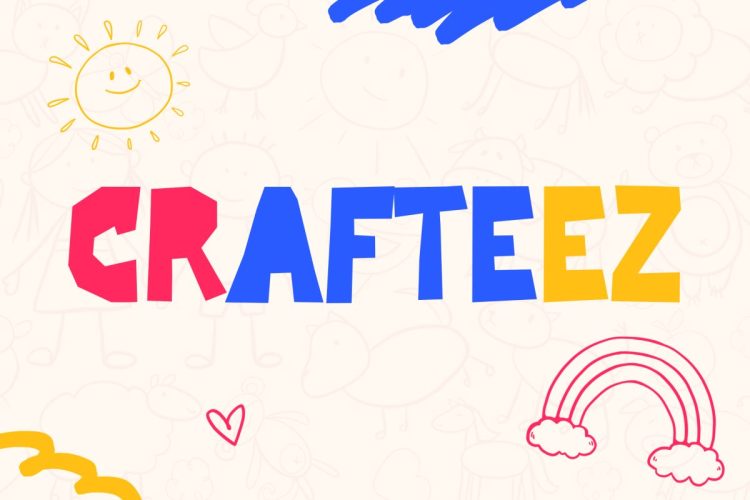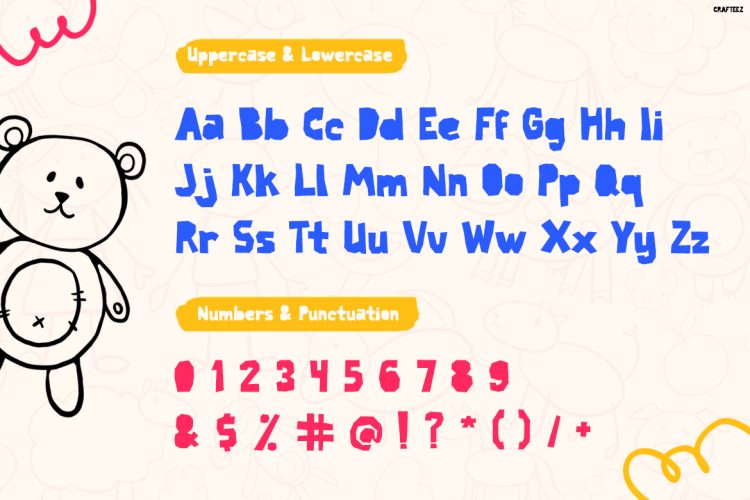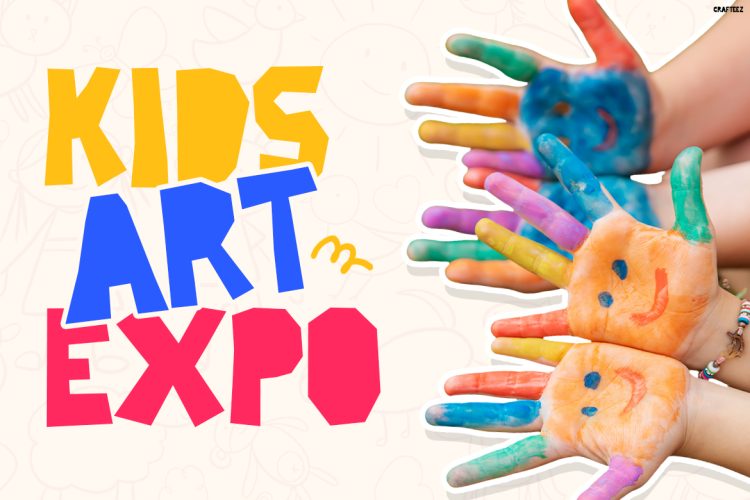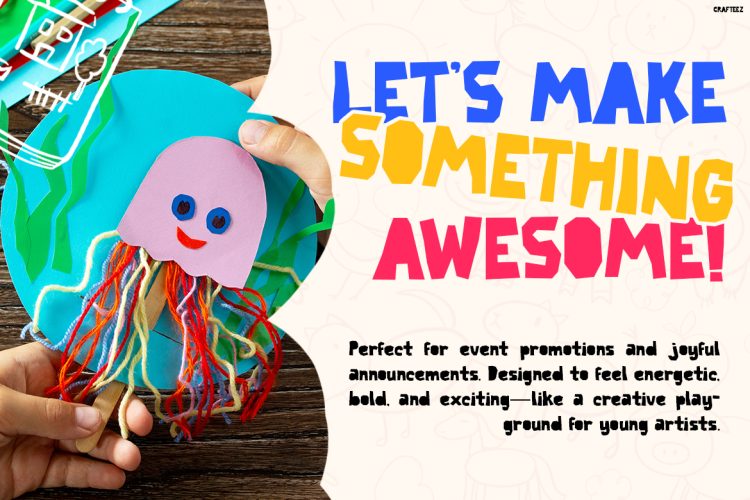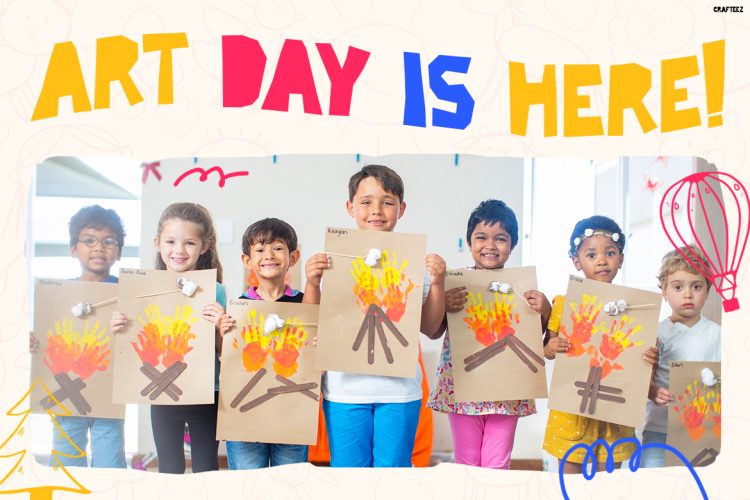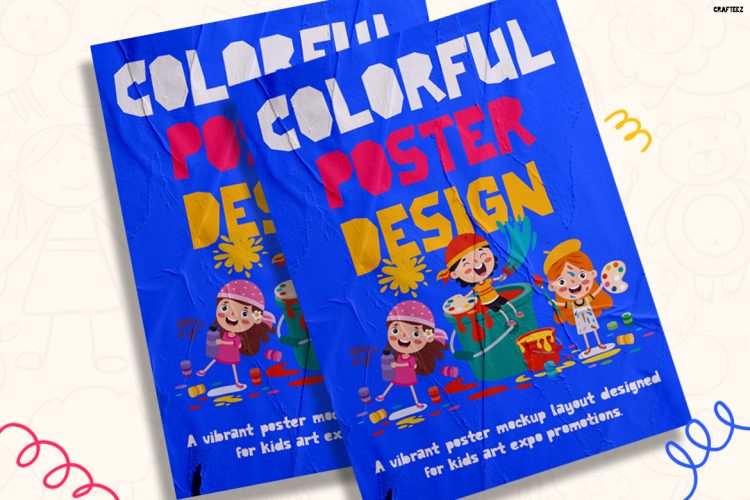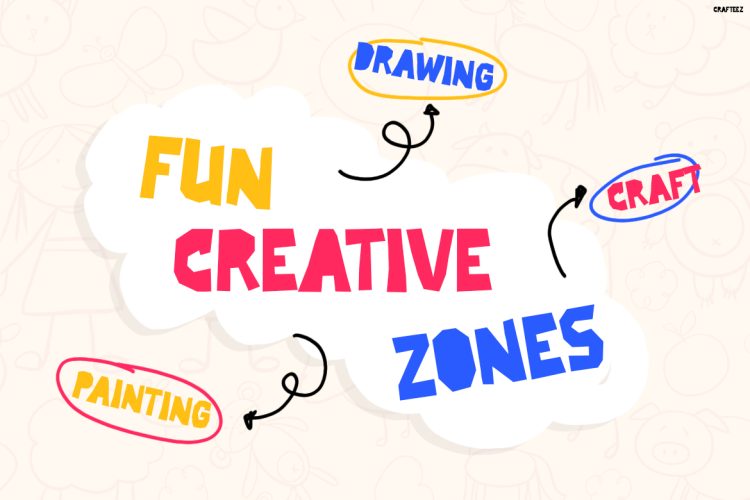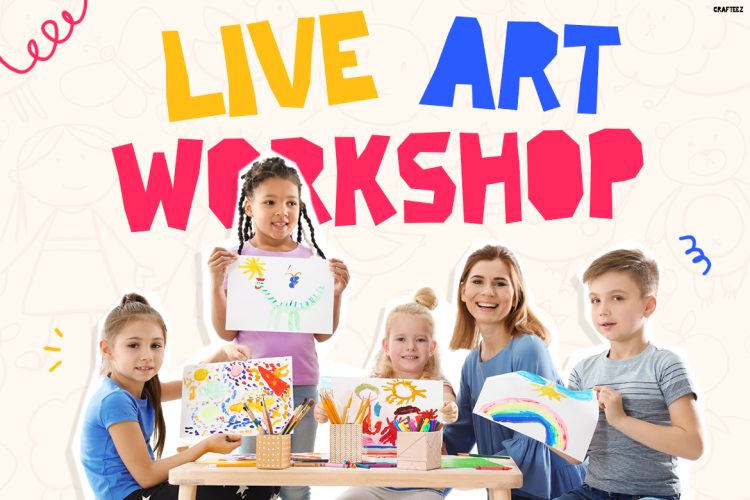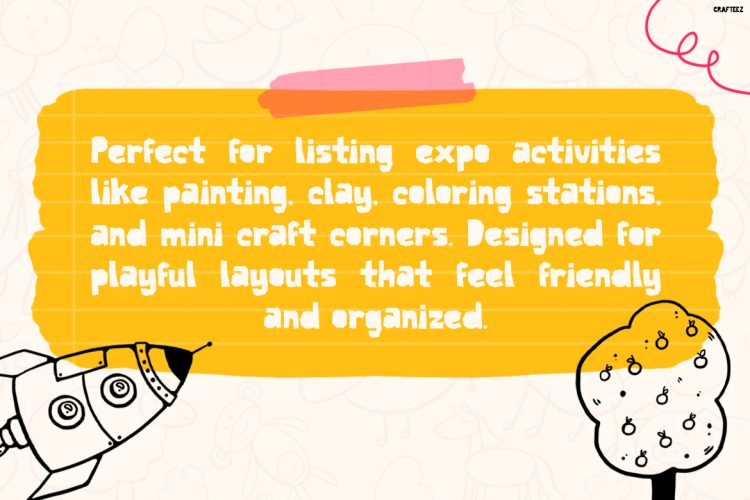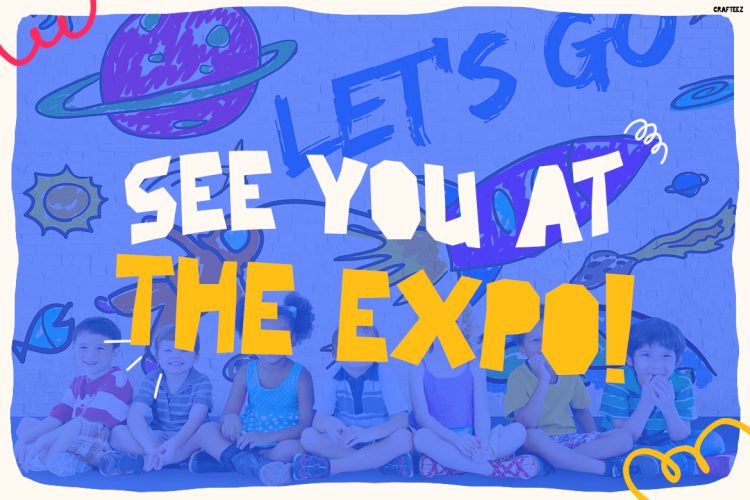
Kids Font Crafteez — Fun Kids Display Font Full of Creativity
Kids Font Crafteez brings cheerful energy with bold hand-drawn shapes, playful curves, and colorful creative vibes. Furthermore, the font creates a fun and friendly appearance that instantly captures attention in kids-themed designs. Because of its artistic and imperfect lettering style, Crafteez feels expressive, energetic, and full of personality. In addition, the font blends doodle-inspired aesthetics with strong readability, so every headline looks exciting while still staying clear and easy to read. As a result, your designs feel more lively, creative, and unforgettable for children and family audiences.
Moreover, Crafteez works beautifully for educational content, art events, and playful branding because of its warm and imaginative character. Whether you are designing posters, activity books, classroom projects, or social media graphics, this font helps your visuals feel more engaging and interactive. Therefore, Crafteez becomes a perfect choice for creators who want typography that looks joyful, artistic, and kid-friendly.
Kids Font Crafteez Perfect For Creative Projects
Best Used By:
- Kids activity brands
- School and classroom projects
- Art workshop promotions
- Children’s book designers
- Toy and craft packaging
- Kindergarten branding
- Educational content creators
- Poster and flyer designers
- Fun social media campaigns
Additionally, Crafteez adapts perfectly to both digital and print designs because of its playful yet versatile structure. Consequently, your projects can look more colorful, creative, and visually appealing.
Make Every Design More Fun